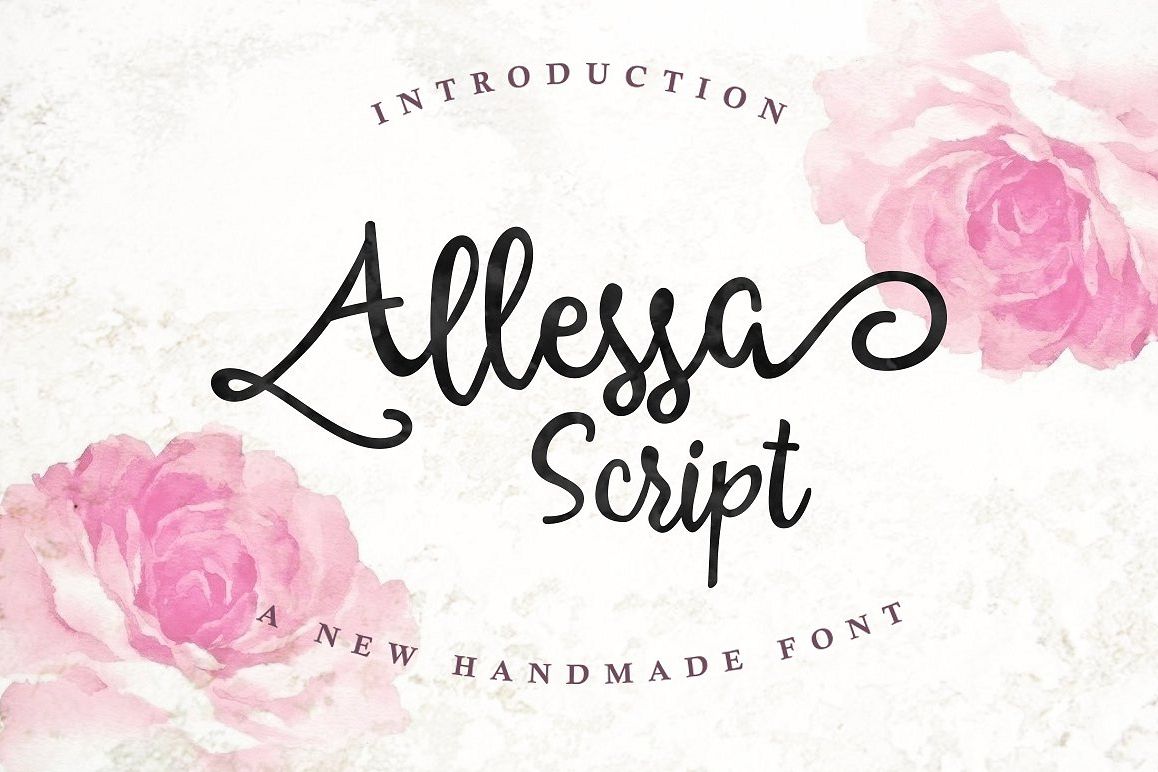
Allessa Script
Allessa Script is a beautiful handmade script give the natural looks.
312 glyphs and alternate character contain with opentype features.
Stylistic alternates, Ligature, Swash and more. You can access all those
Great for Apparel Brand, any greeting cards, book cover, Painting
design style, or any design that needs natural and personal touch. Mix
and match the alternate characters to add an attractive message to your
design.